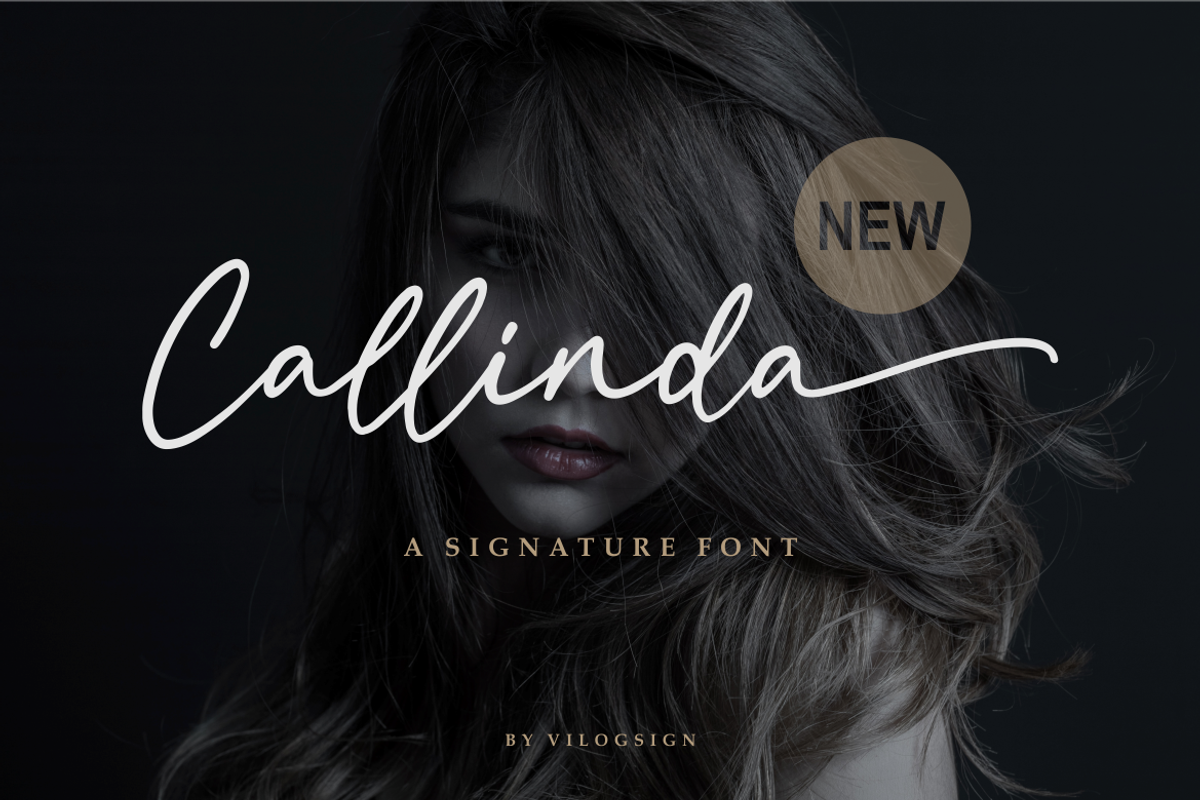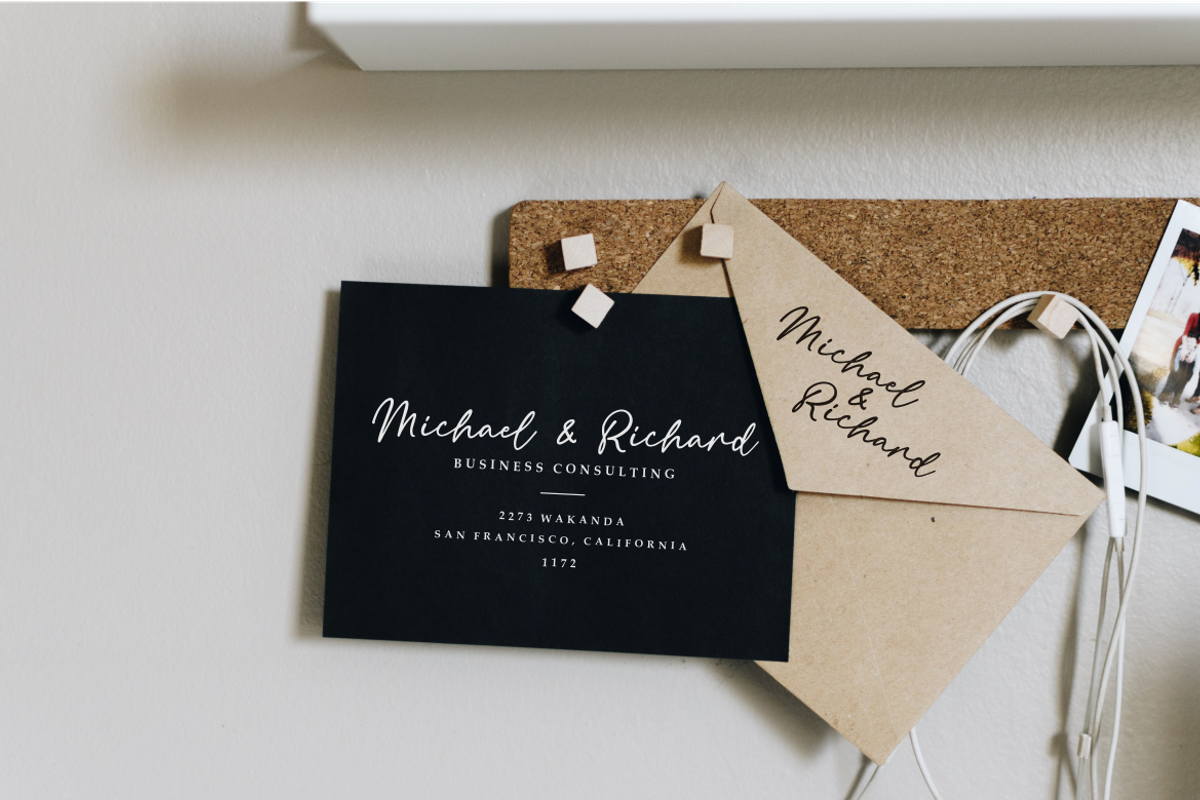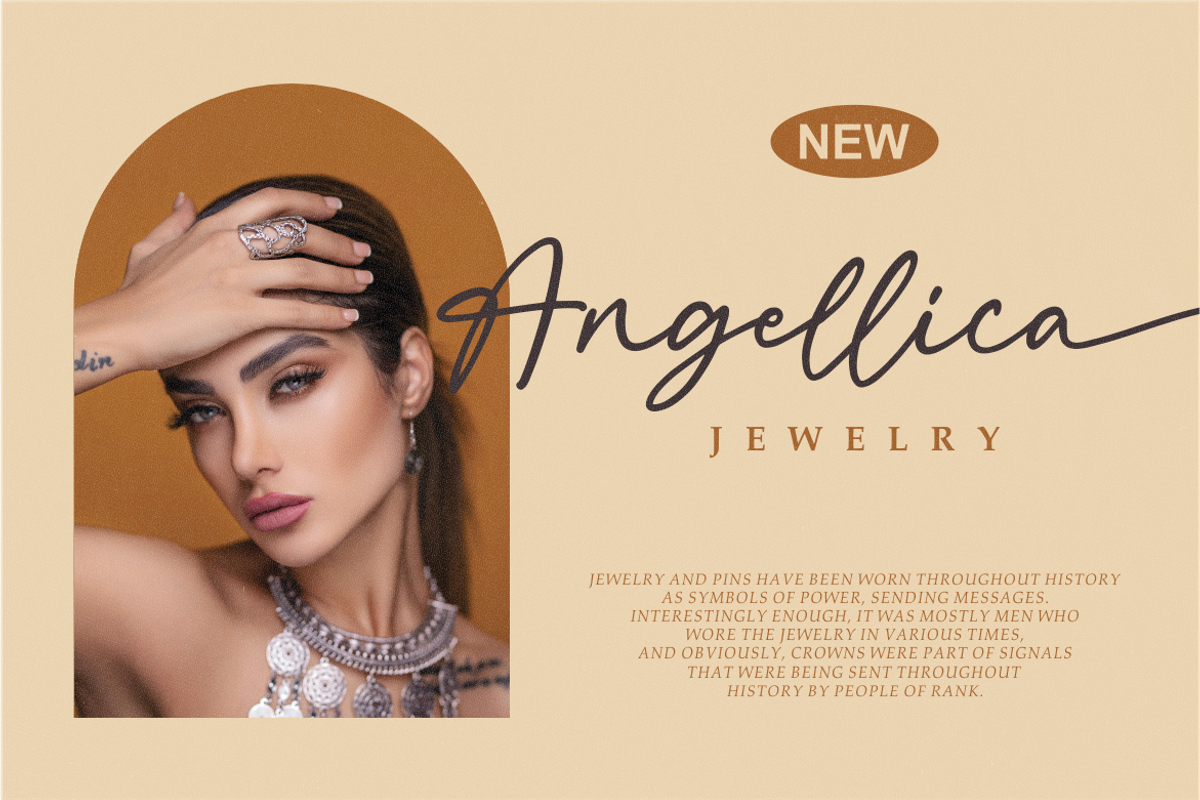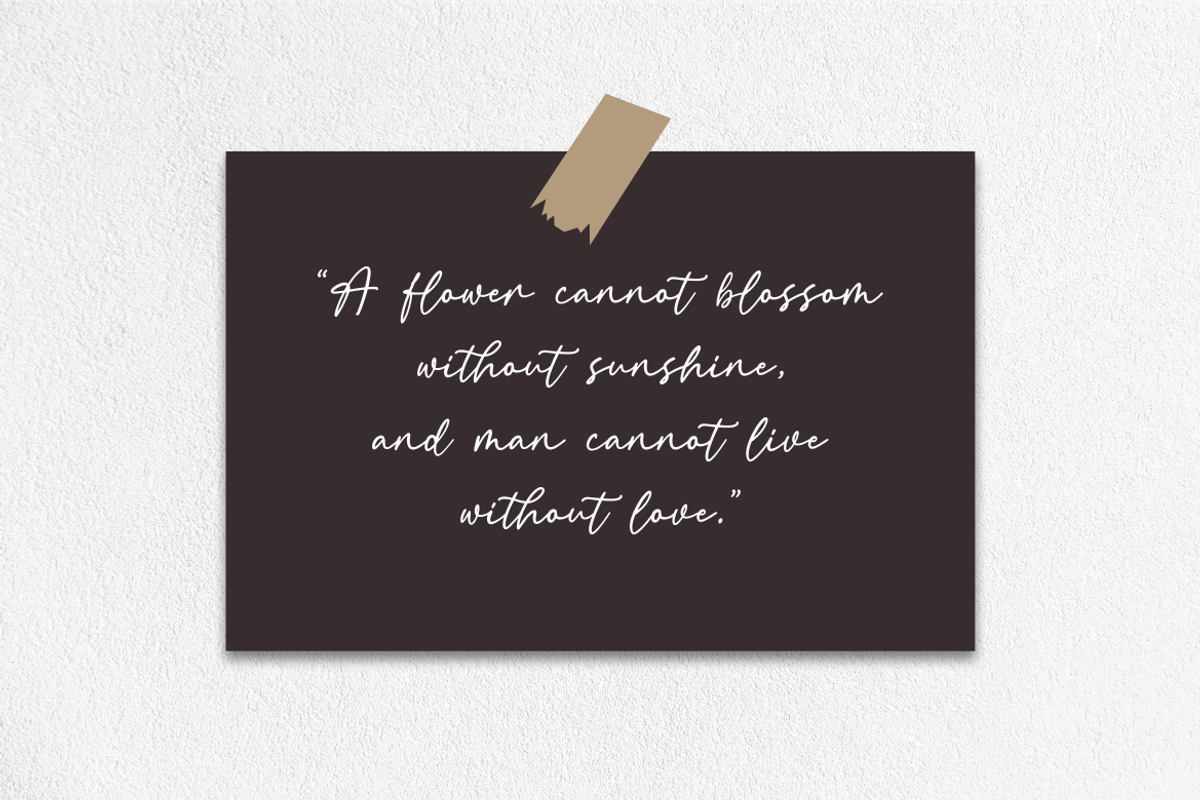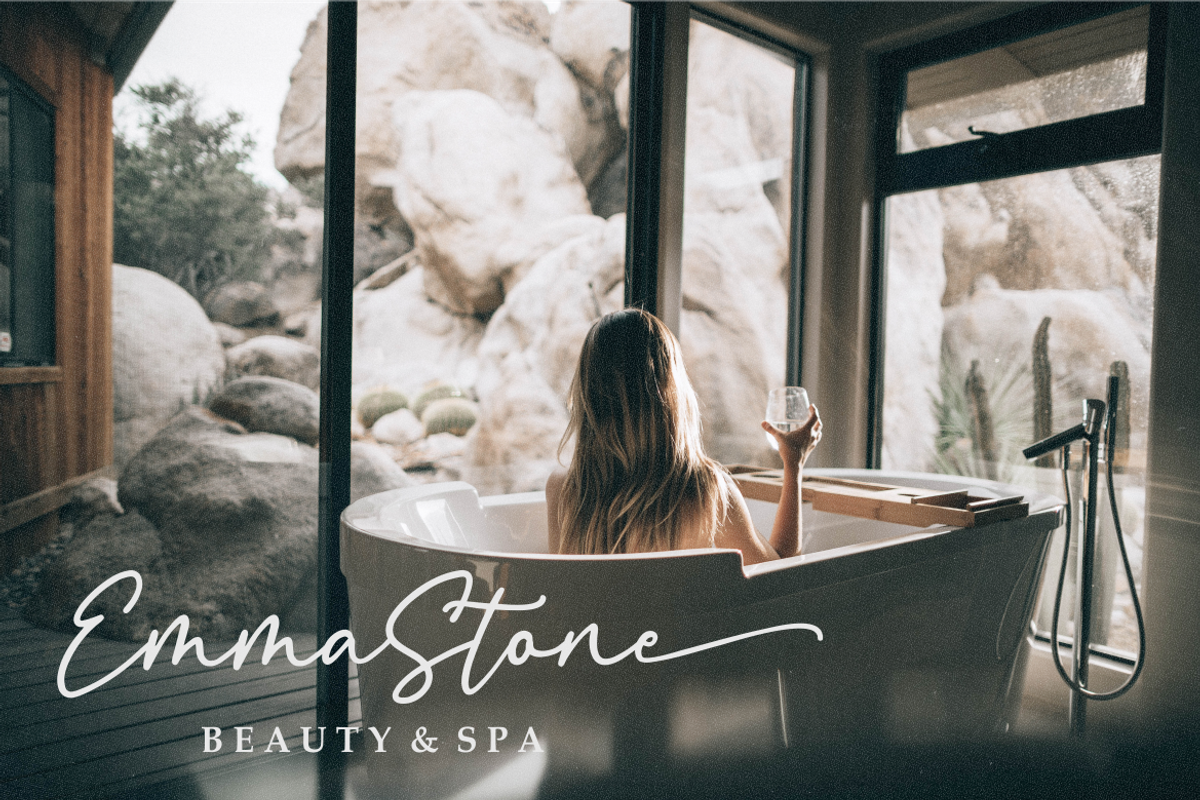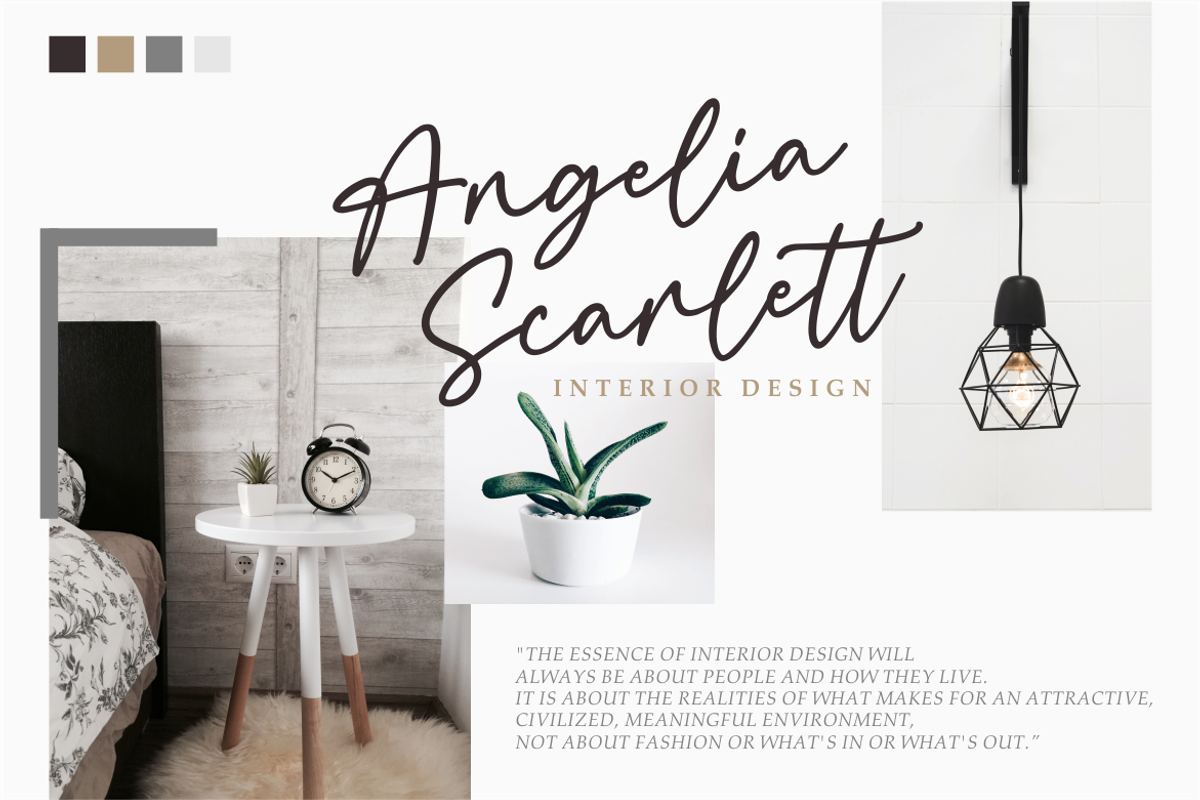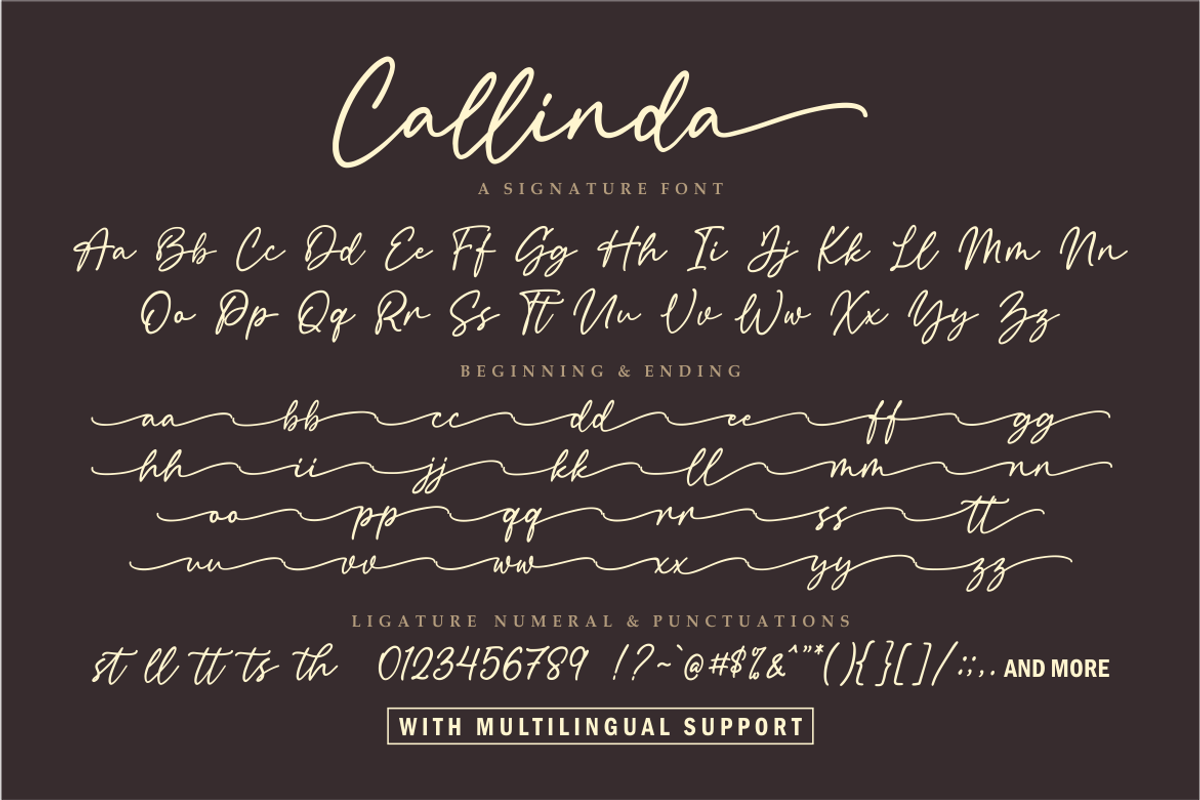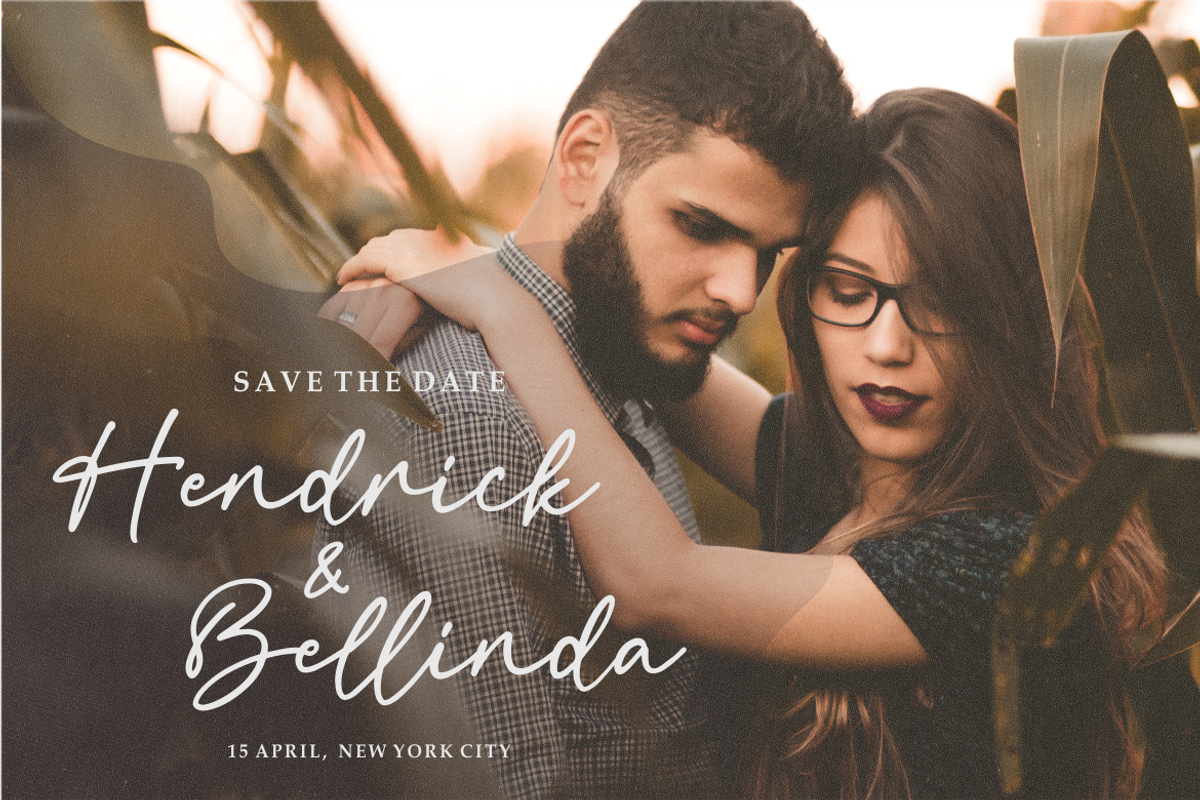
Callinda a Signature Font
Hi,,, Introducing "Callinda" a Signature Style Font!!!
Made with very serious With Beginning and Ending make to make this font unique, so perfect for your need. This font is very good with multilingual support to complete your need. Very suitable to make a branding, Poster, magazine, fashion, quotes, logo, packaging, and other.
- Beginning and ending